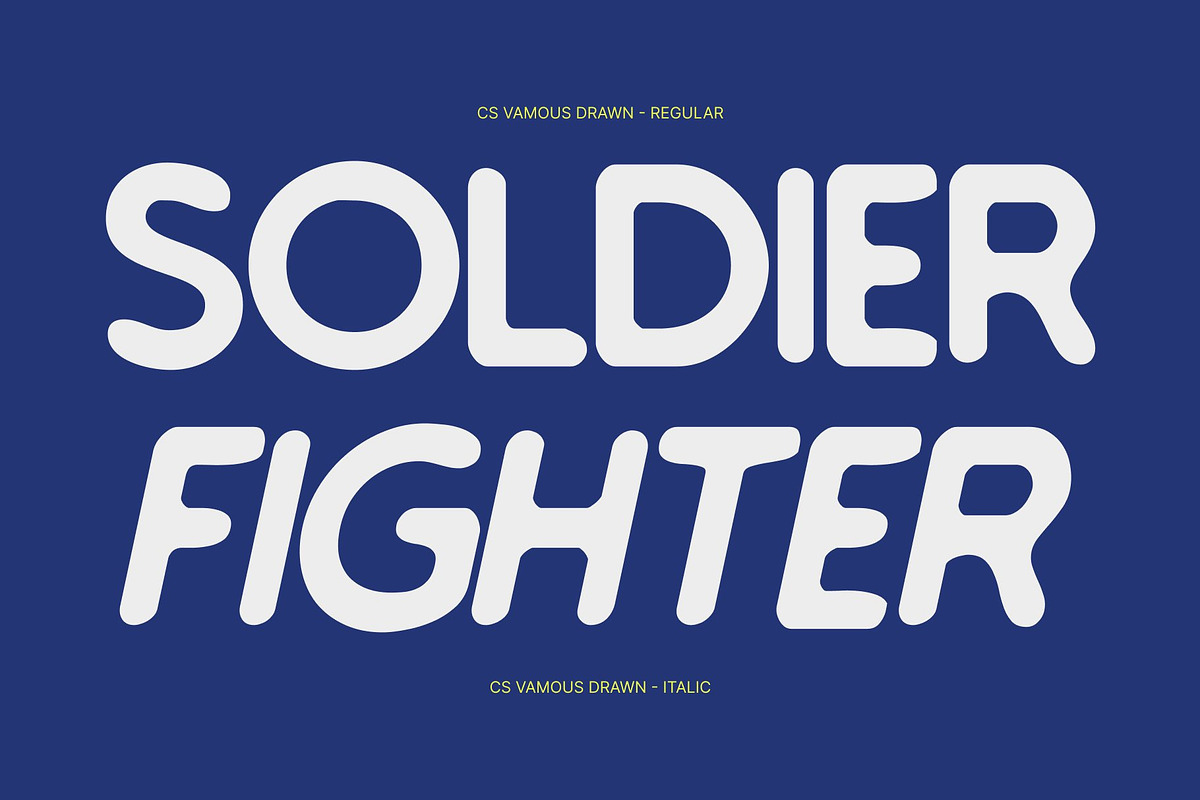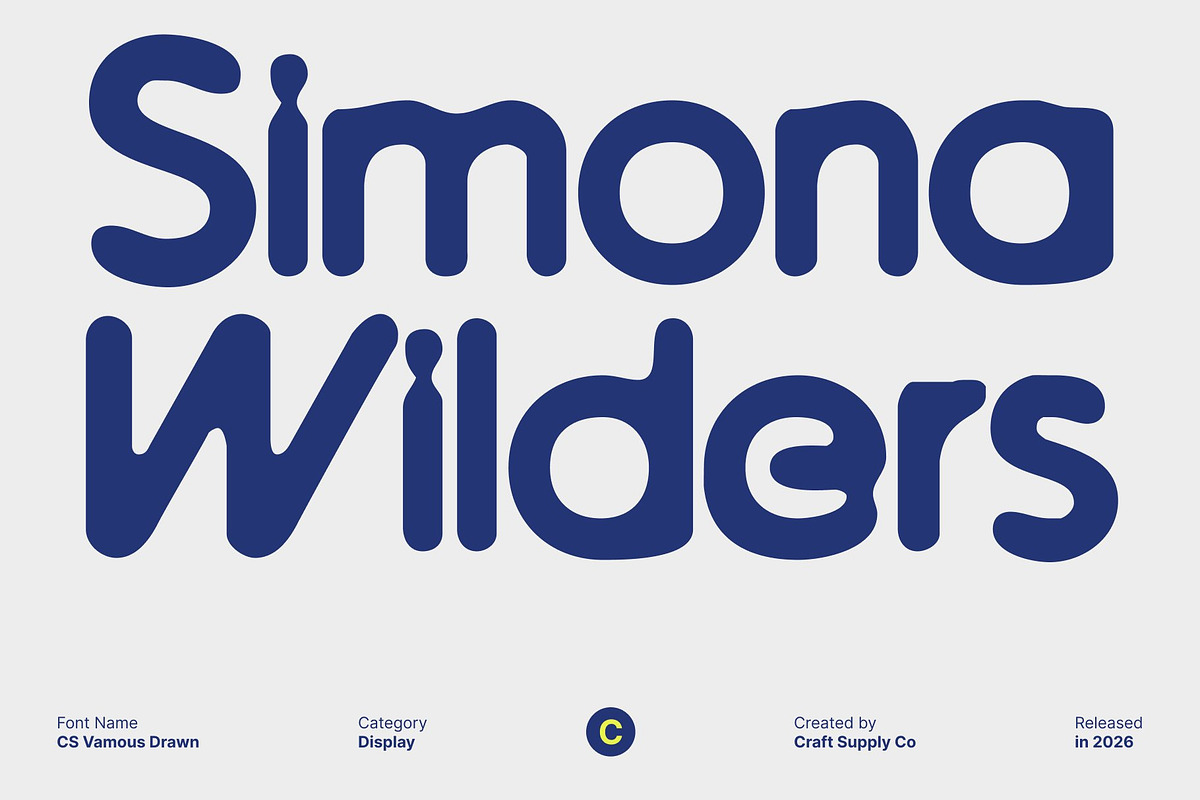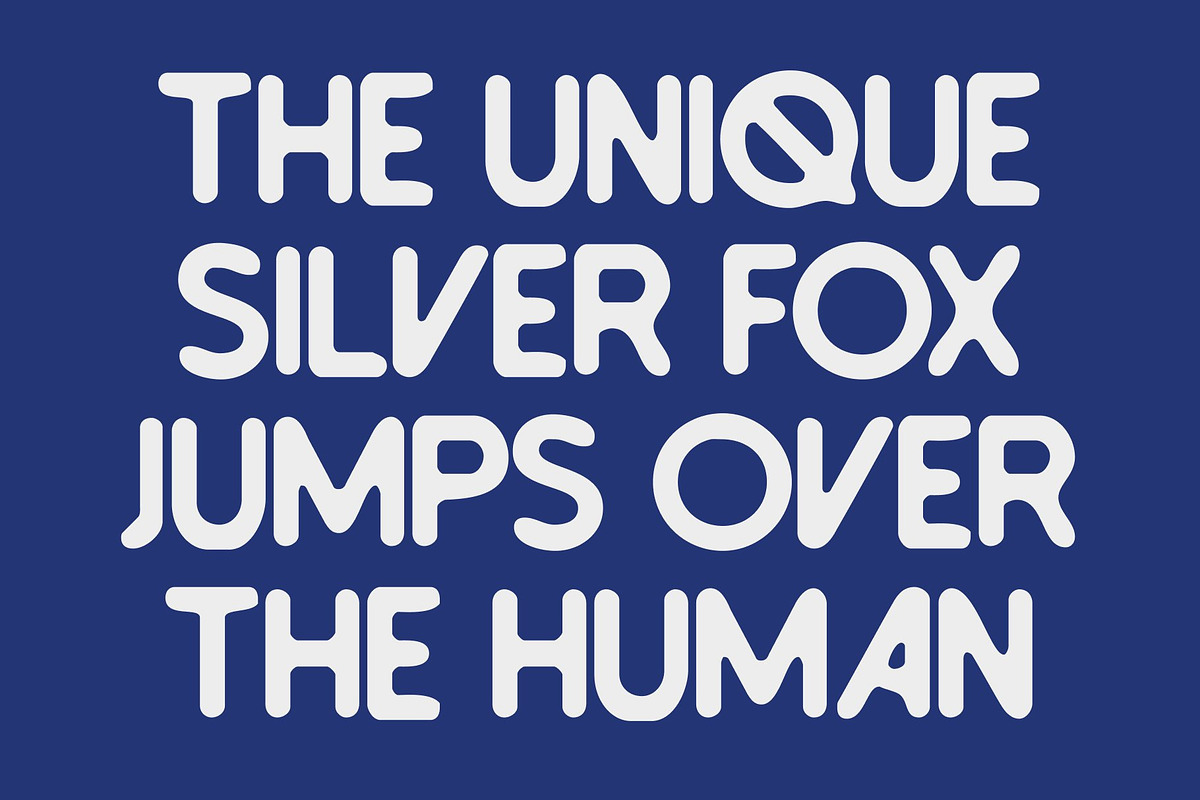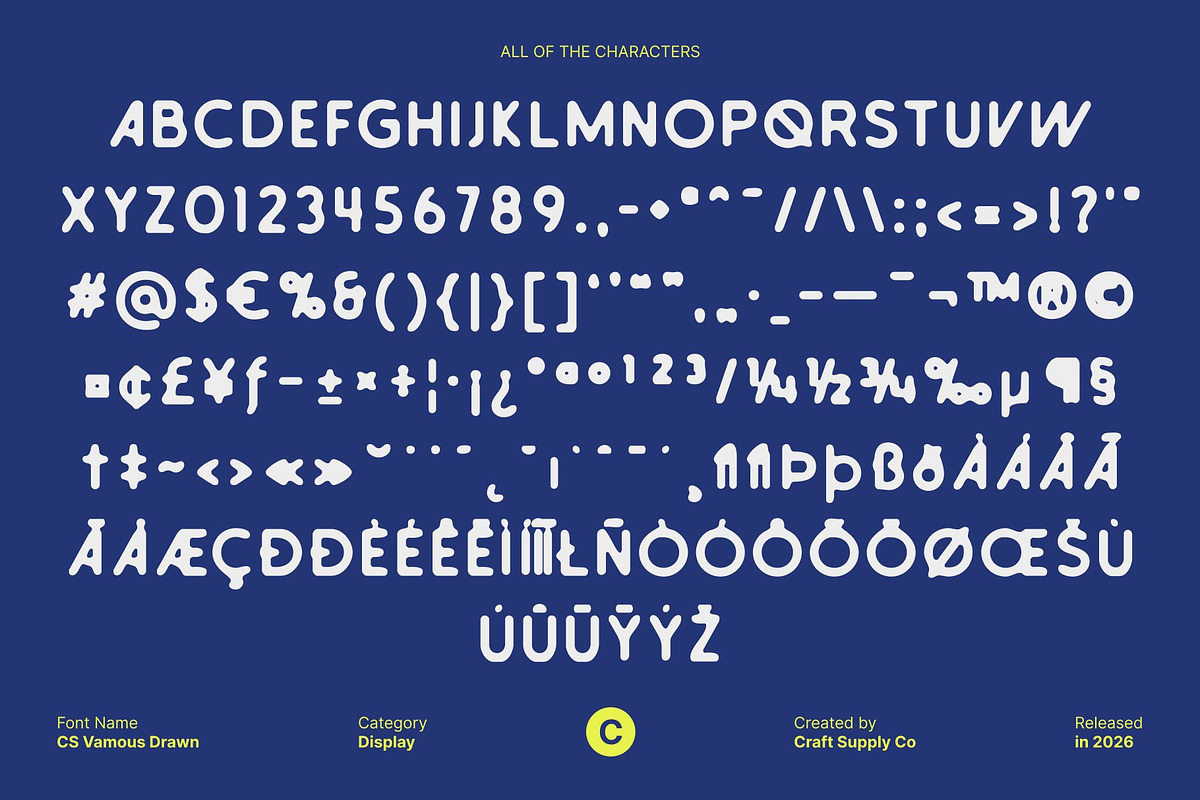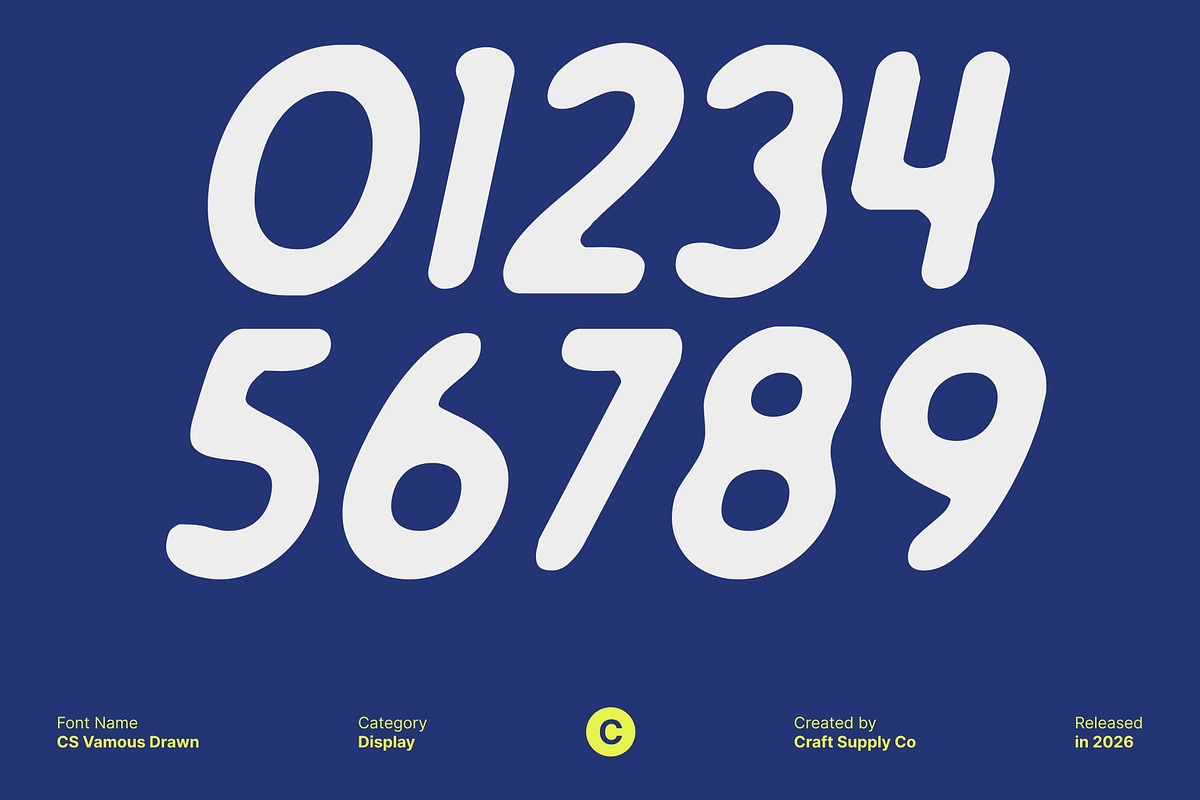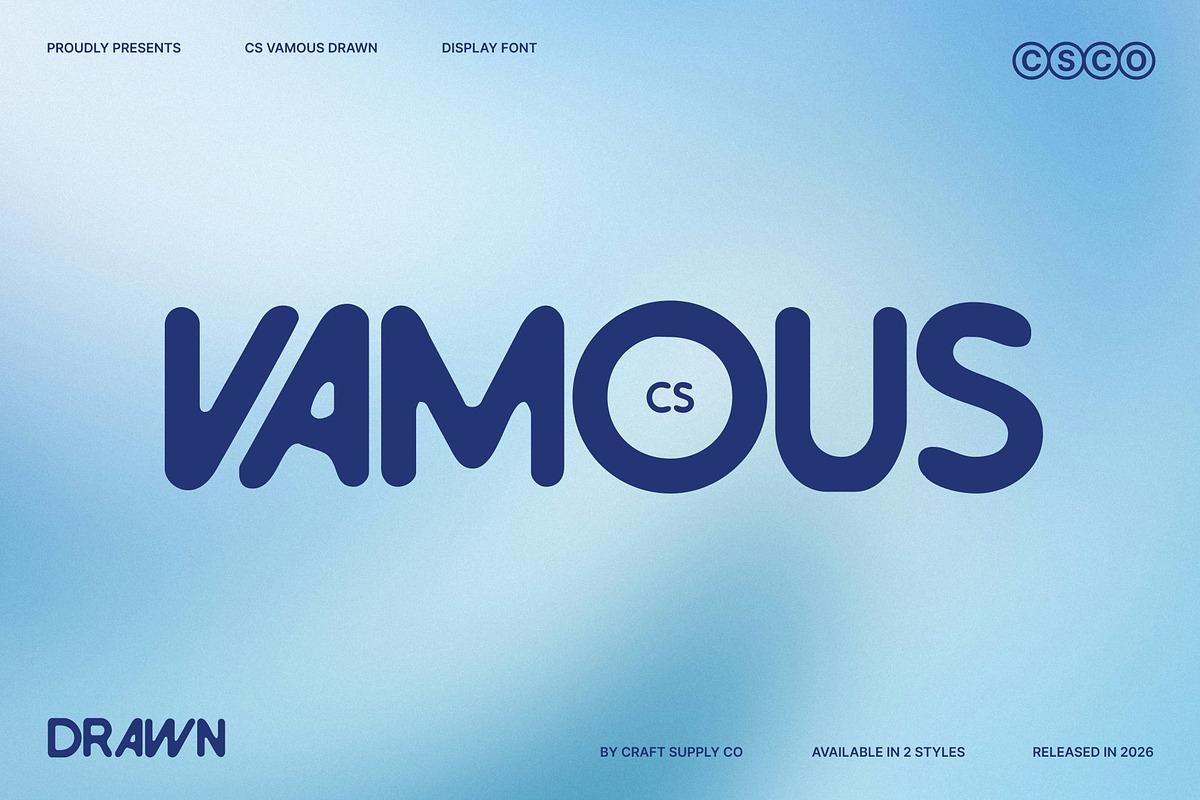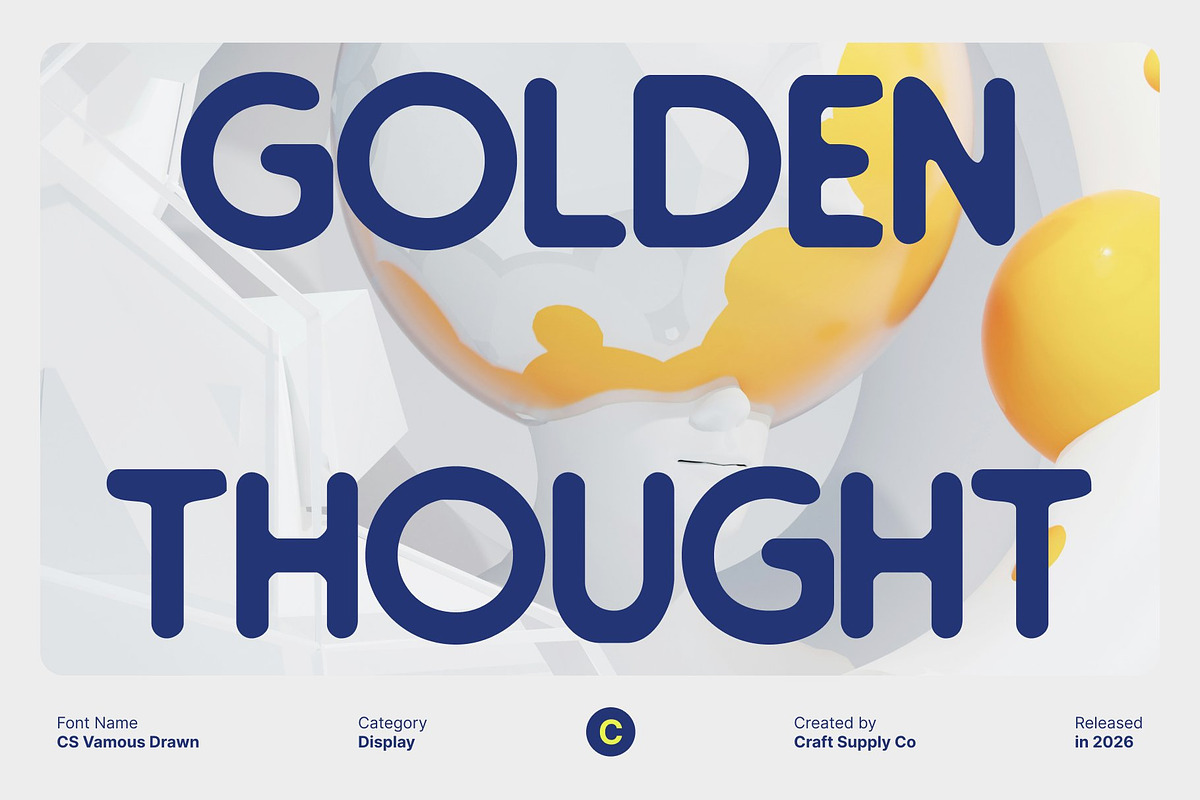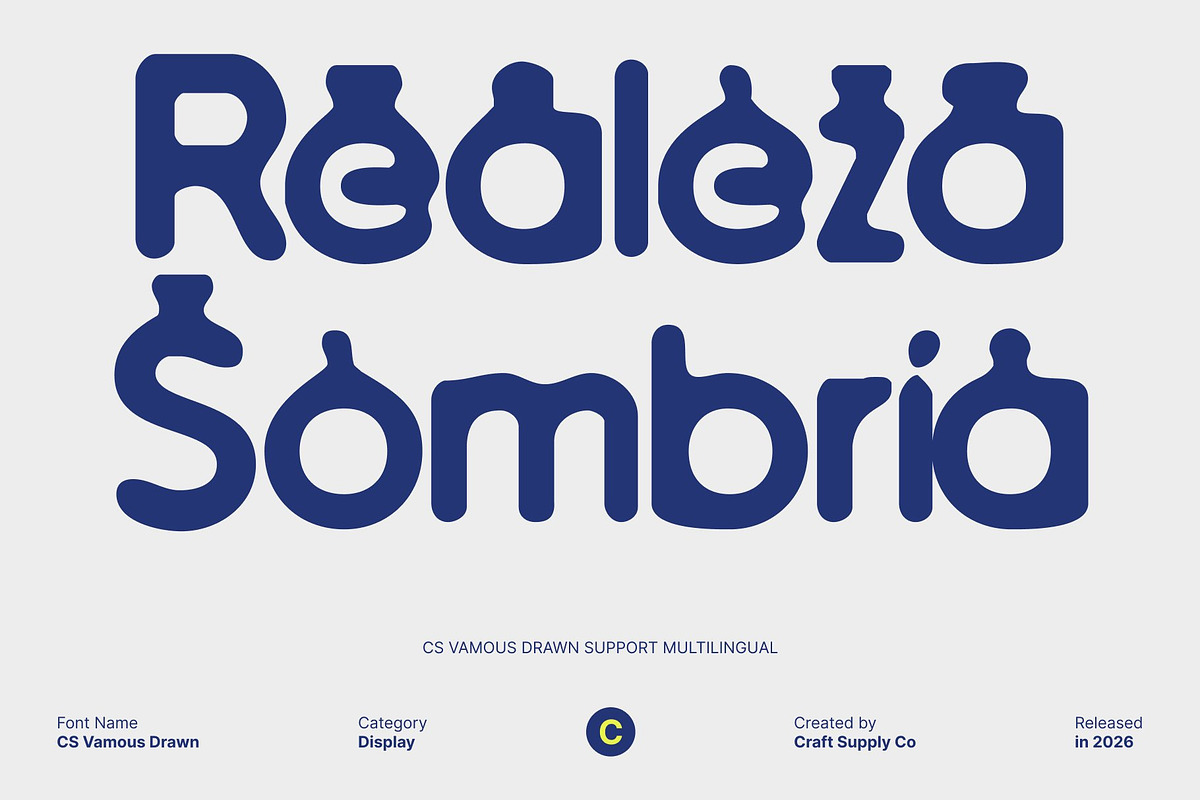
CS Vamous Drawn
CS Vamous Drawn – Modern Sans Serif with Geometric Precision and Unique Hand-Drawn Flair
Modern Geometric Sans Serif with a Twist This is a modern sans serif font that blends clean, geometric design with a subtle drawn effect. Its precise shapes and balanced proportions convey a stylish, contemporary attitude, while the hand-drawn texture adds personality and distinctiveness to each character. The result is a typeface that feels fresh, confident, and forward-looking.
Clean Geometry Meets Handcrafted Character Every letterform in this font is carefully structured with consistent strokes and refined geometric forms, ensuring readability and visual harmony. The drawn effect introduces playful irregularities and subtle variations, giving the font a handcrafted, artistic edge without sacrificing its modern, minimalist essence. This combination of order and uniqueness makes it stand out in any design.
Stylish and Trend-Ready for Modern Projects Designed for projects that value clarity, innovation, and contemporary style, this font works perfectly in lifestyle branding, creative campaigns, editorial layouts, and digital media. Its cool, modern tone communicates simplicity and confidence, while the drawn details inject personality and visual interest.
Versatile for Display and Branding This font adapts seamlessly to a wide range of uses logos, titles, posters, web headers, and promotional materials retaining legibility at display sizes and a professional, stylish appearance. The hand-drawn nuances give every project a unique touch, helping your designs stand out with a modern yet approachable aesthetic.
- CS Vamous Drawn Regular
- CS Vamous Drawn Italic